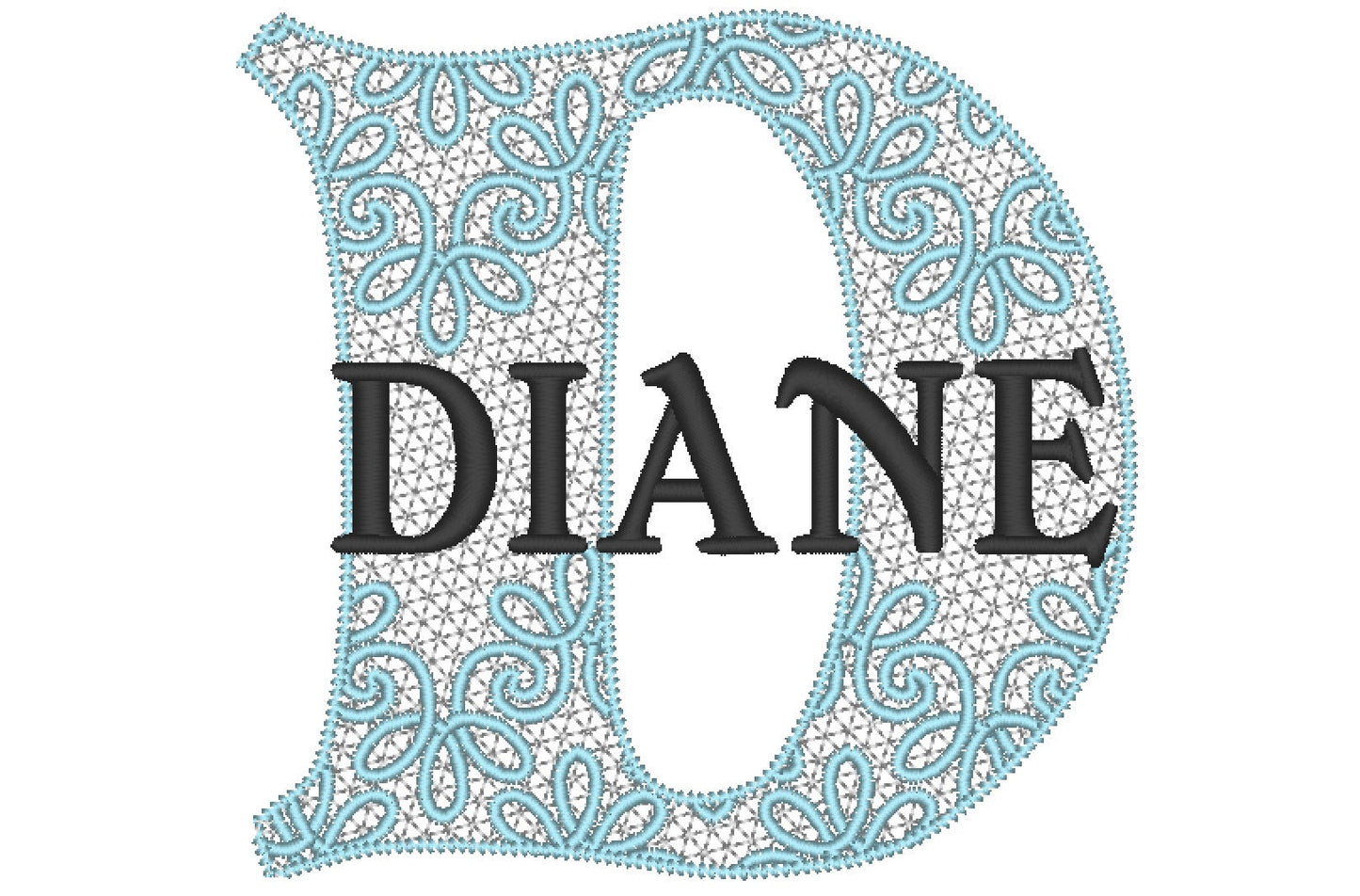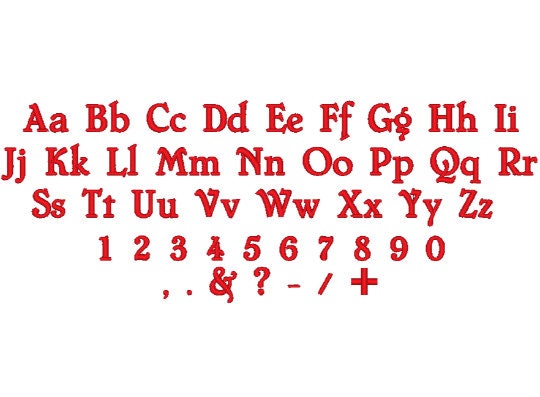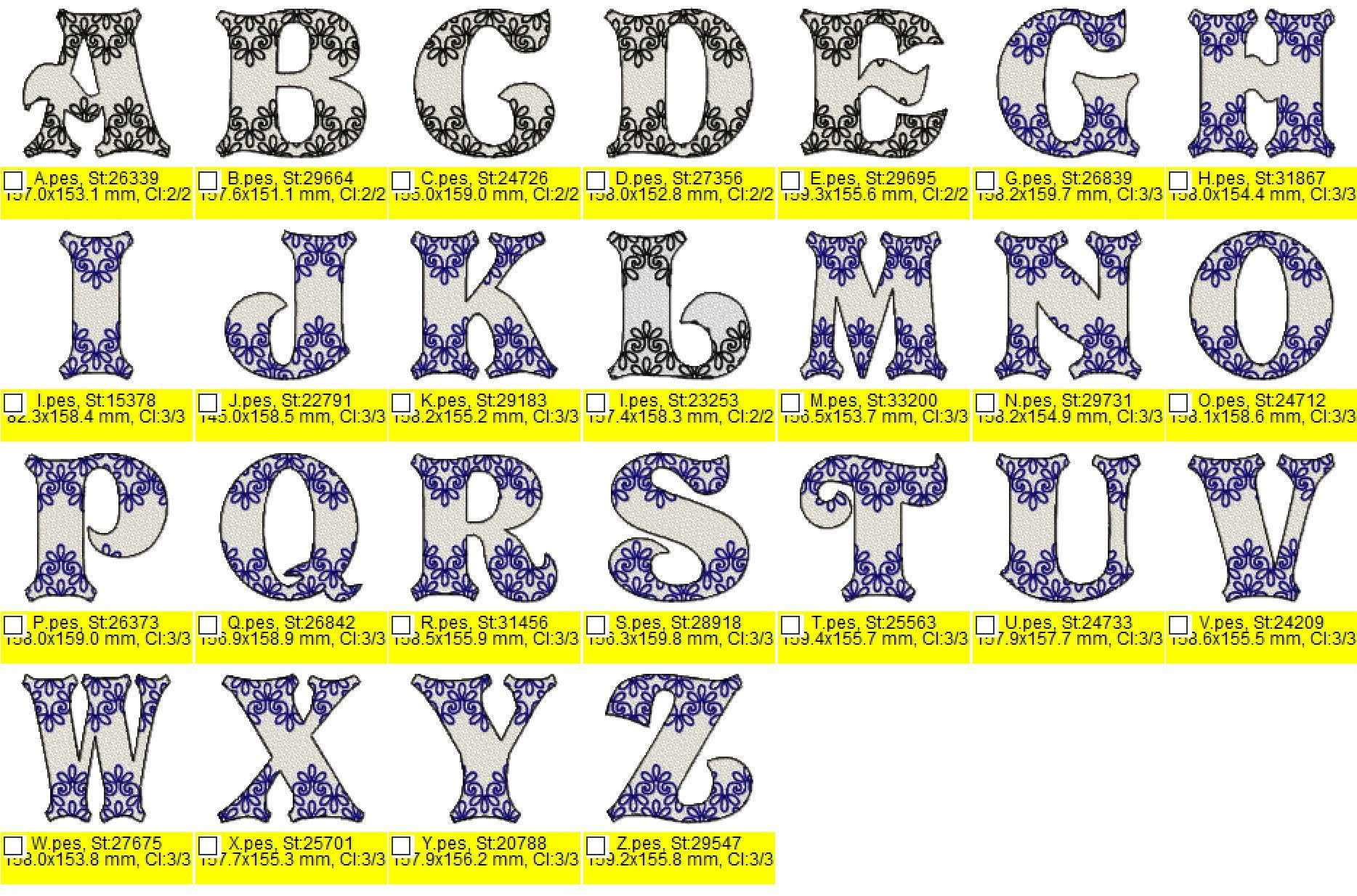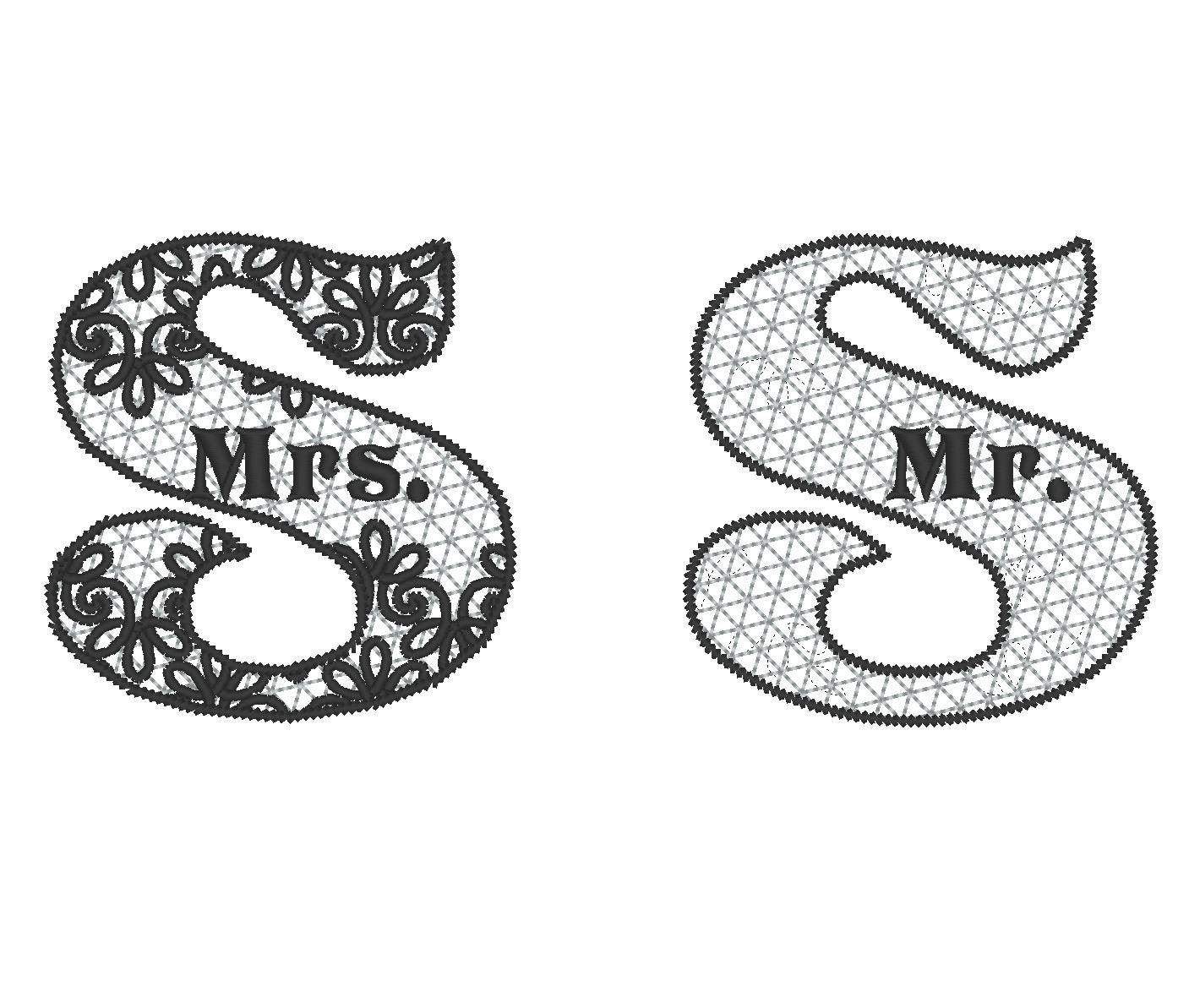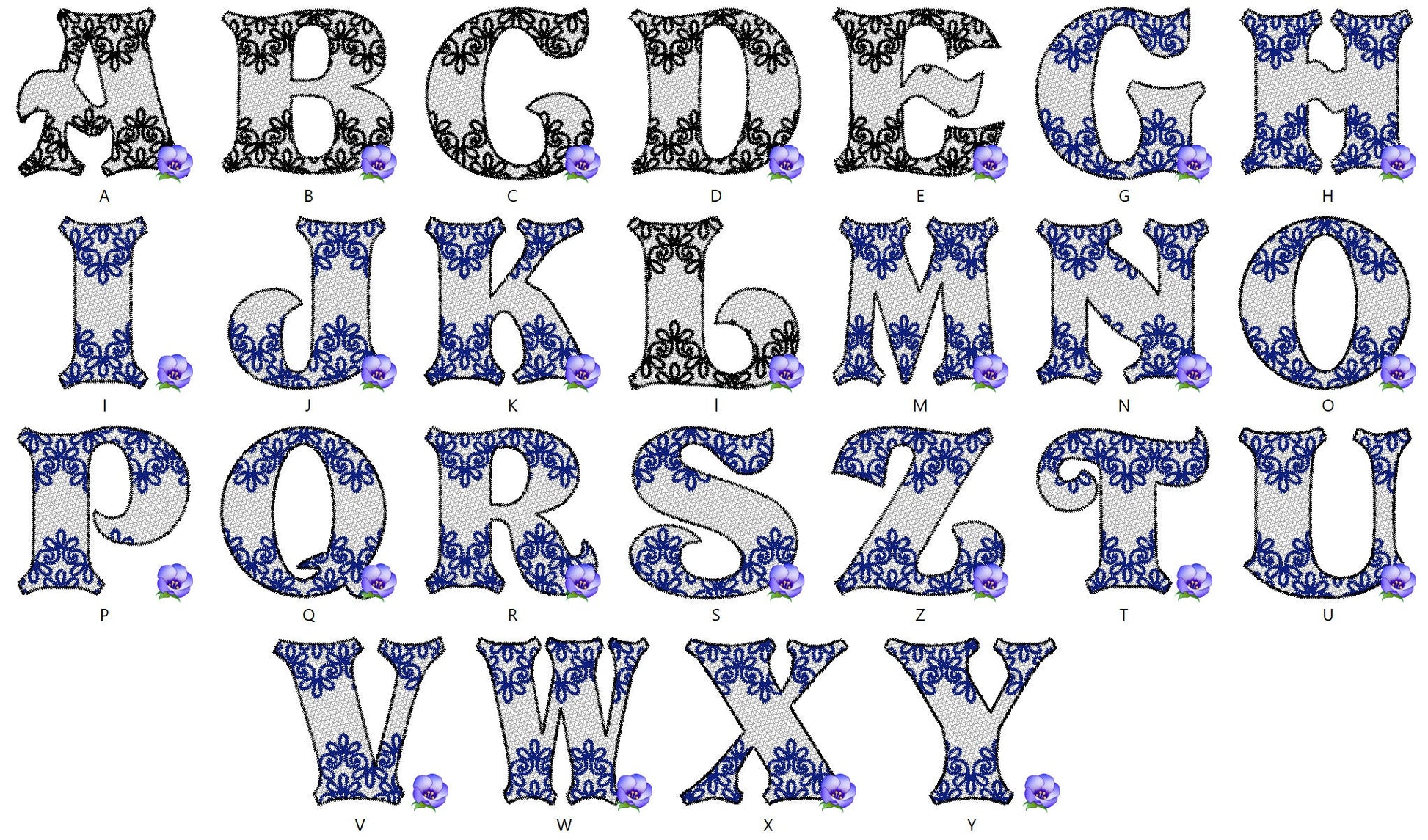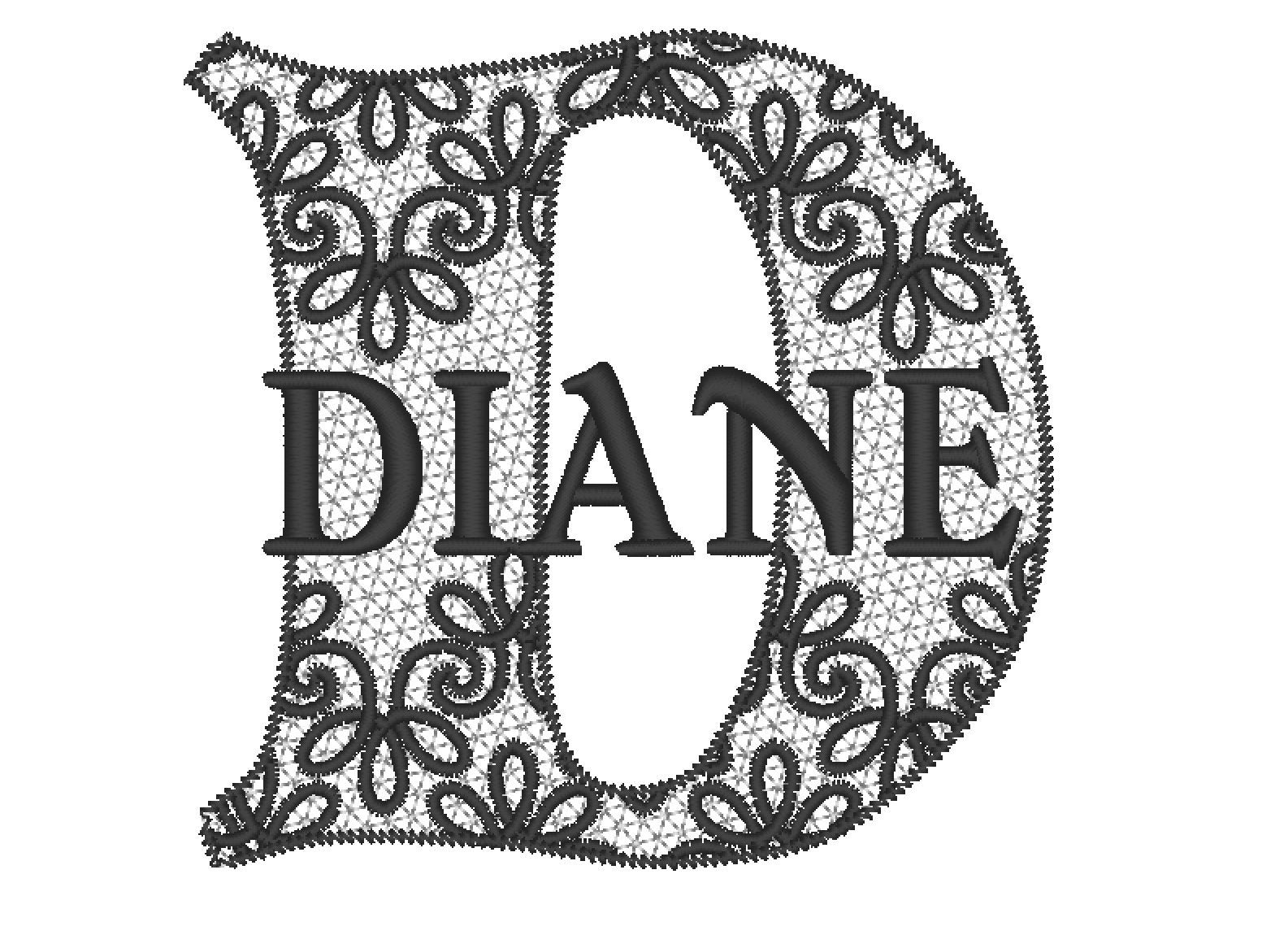
Mr and Mrs Lace Monogram
Or click to open the linkA lace split monogram set for Mr and Mrs, with a mini font that fits into the split. A lovely wedding gift for pillows, towels and napkins.
The lace split letters come in 4, 5 and 6 inches. The mini font comes in seven sizes from 0.6 to 2.5 inches, so names or a wedding date fit neatly into the split.